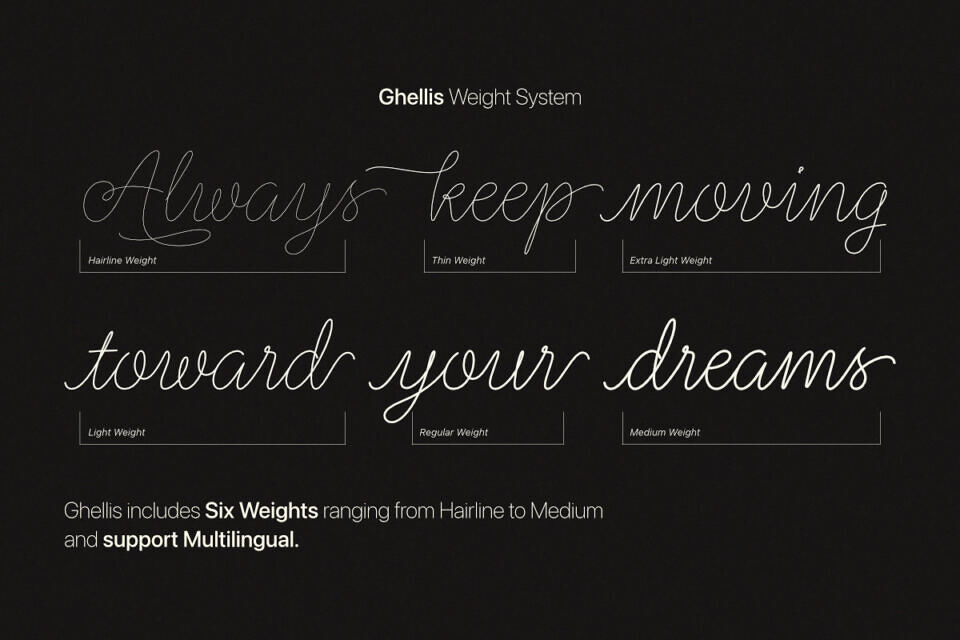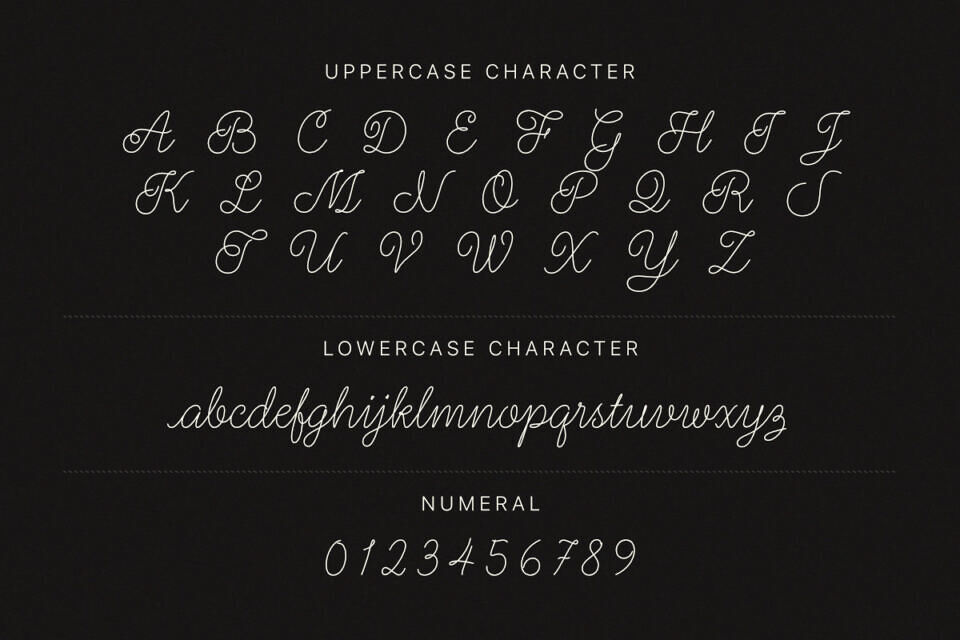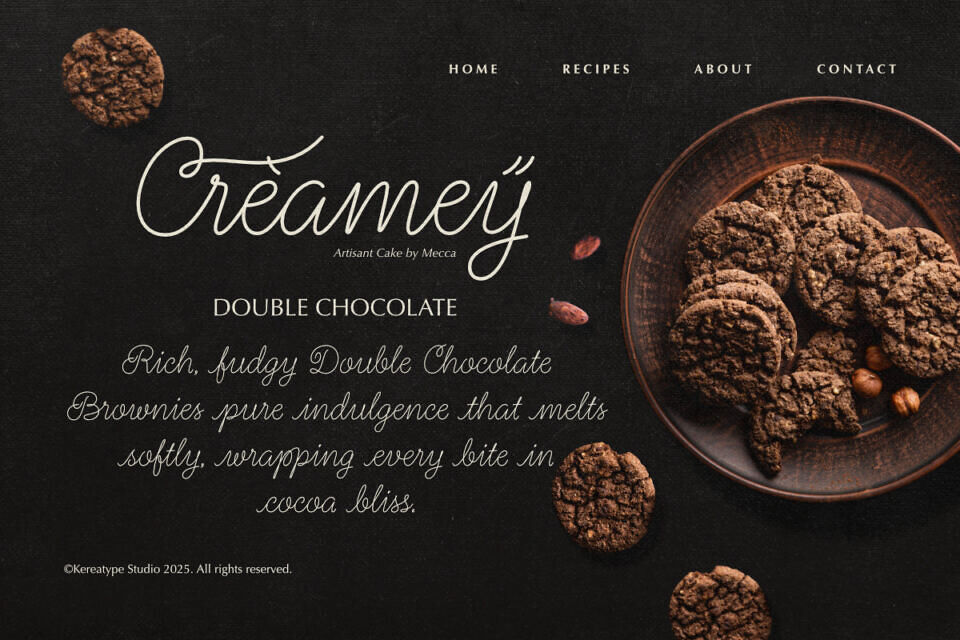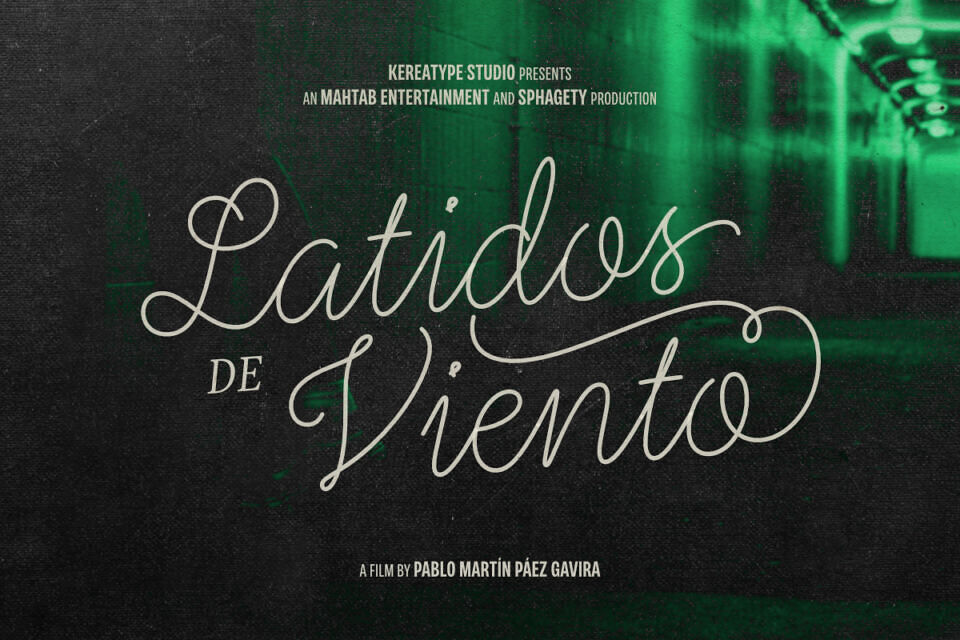
Ghellis Font
Ghellis is a beautifully elegant monoline script font crafted with delicate, continuous lines that flow effortlessly like natural handwriting. Designed to be versatile and expressive, Ghellis comes in 6 refined weights from Hairline to Medium that giving you perfect balance and flexibility for any creative project.
Every letter in Ghellis carries a graceful rhythm, combining modern simplicity with timeless sophistication. It’s loaded with over 100 ligatures, stylistic alternates (SS01–SS05), Swash and beautiful decorative initials, offering endless possibilities to elevate your typography. Whether you’re creating branding, wedding invitations, luxury logos, packaging, quotes, or editorial layouts, Ghellis brings a touch of elegance and softness to every word.